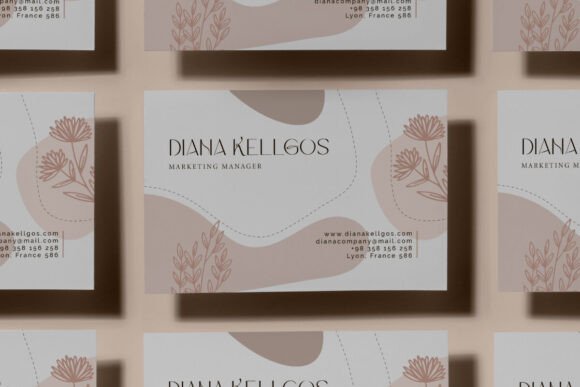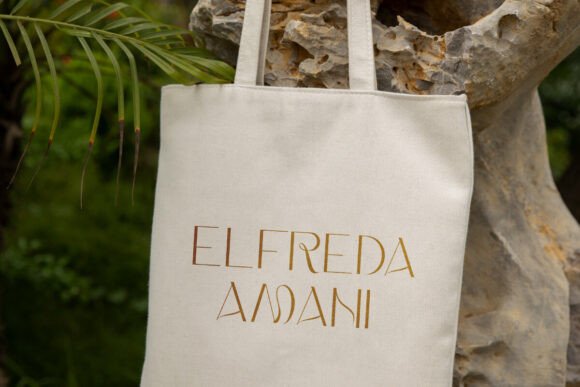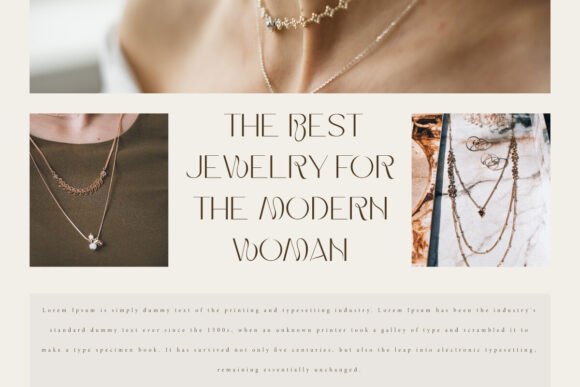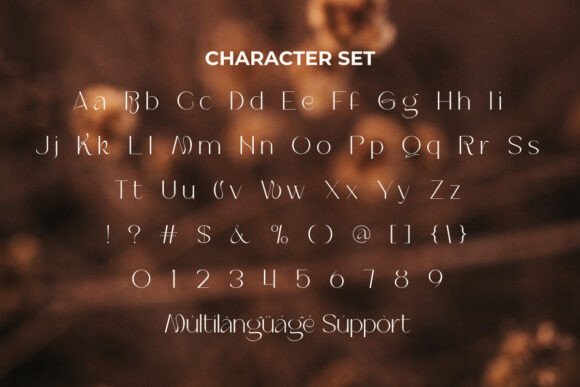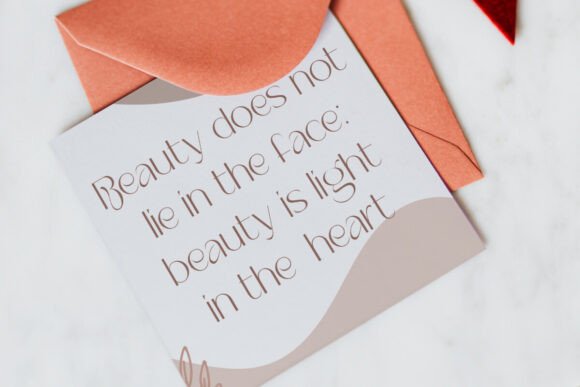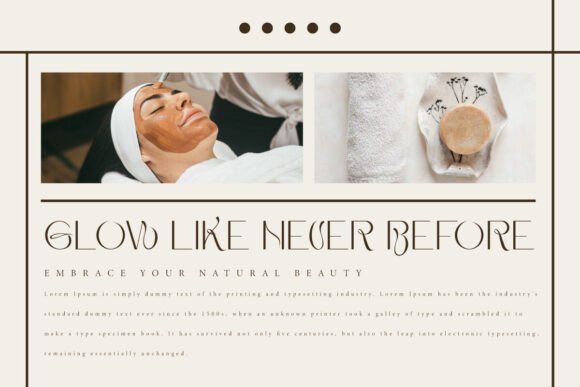
Discover the Elegance of Dark Beige Font: Elevate Your Designs with Sophistication
In the world of typography, a font can make or break the aesthetic of a design. For designers and crafters seeking a touch of elegance and sophistication, the Dark Beige Font stands out as a remarkable choice. This beautiful, classic, and aesthetic sans serif display font is designed to add a stunning style to various design projects, making it a versatile tool for creatives.
What Makes Dark Beige Font Stand Out?
The Dark Beige Font is characterized by its sophisticated and stunning style, which is primarily attributed to its sans serif design. Sans serif fonts are known for their clean and modern look, making them perfect for designs that require a bit of elegance and a lot of clarity. What sets Dark Beige Font apart is the beautiful flowing lines in some of its uppercase letters. These unique flourishes not only add a touch of luxury but also differentiate this font from more uniform sans serif fonts.
One of the key benefits of the Dark Beige Font is its versatility. Whether you’re working on a brand image, a cover, custom design, flyer, invitation, label, marketing material, menu, poster, product packaging, quote, signage, stationery, or a website page, this font can be seamlessly integrated. Its classic yet modern aesthetic ensures that it complements a wide range of design themes and styles.
Applications of Dark Beige Font
- Brand Image: Establish a sophisticated and professional brand identity with a font that exudes elegance.
- Covers and Posters: Draw attention with a stylish and readable font that’s perfect for headlines and titles.
- Custom Designs: Add a personal touch to your projects with a font that offers both uniqueness and versatility.
- Marketing Materials: Elevate your marketing materials with a professional look that captures the attention of potential customers.
- Product Packaging: Make your product stand out on the shelves with elegant packaging that reflects your brand’s sophistication.
- Digital and Print Media: From website headers to print materials, Dark Beige Font ensures consistency and style across all platforms.
Why Choose Dark Beige Font?
Choosing the right font for your design project can be daunting, given the plethora of options available. However, Dark Beige Font offers several compelling reasons to be your top pick:
- Aesthetic Appeal: Its classic and sophisticated style ensures your designs look timeless and elegant.
- Readability: Despite its decorative elements, the font maintains a high level of readability, making it suitable for both headings and body text.
- Versatility: Its adaptability across various design projects makes it a valuable addition to any designer’s toolkit.
For designers and crafters looking to infuse their projects with a touch of sophistication and elegance, the Dark Beige Font is an excellent choice. Its unique blend of classic sans serif design and beautiful flowing lines in uppercase letters sets it apart from other fonts. Whether you’re working on a brand image, marketing materials, product packaging, or digital designs, Dark Beige Font can help elevate your work to the next level. Discover the elegance and versatility it has to offer and make your designs stand out with sophistication.
Embrace the beauty of typography with Dark Beige Font and let your designs speak with elegance and style.